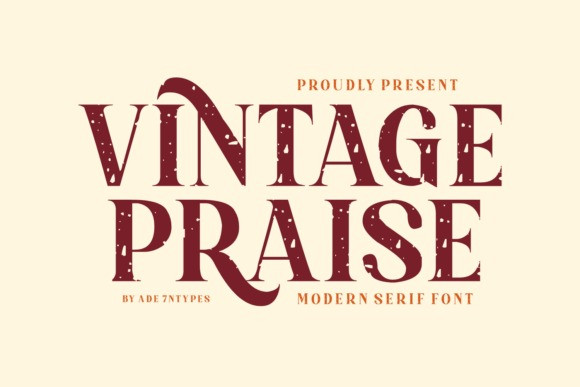
Vintage Praise Font
Vintage Praise Fonts, a luxurious Serif typeface with a modern twist. This sophisticated font bravely marries the charm of yesteryears with the minimalist trend of today, creating an unparalleled visual appeal. With intricate ligatures and fancy detailing, it’s more than just a font; it’s a conduit to transform your logos, branding, and typography into works of art resonating with vintage allure and modern aesthetics. Moreover, the effortless versatility of Vintage Praise Fonts catapults them for myriad applications, from upscale magazines to visually appealing posters, epitomizing brand luxury with every keystroke. Experience the marriage of tradition and modernity that Vintage Praise Fonts encapsulates, and let your design speak volumes.